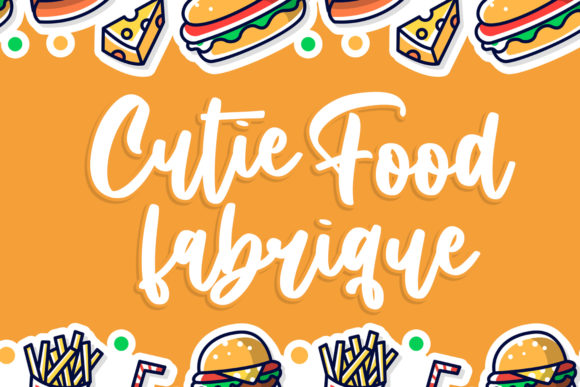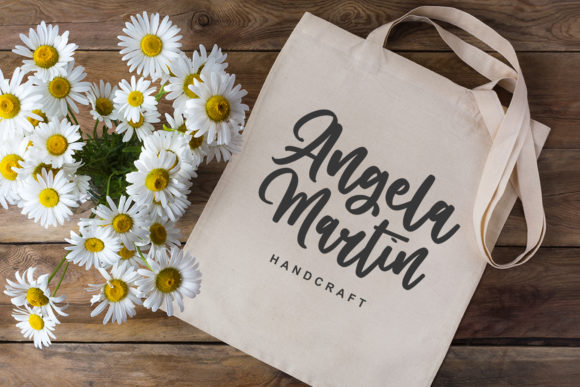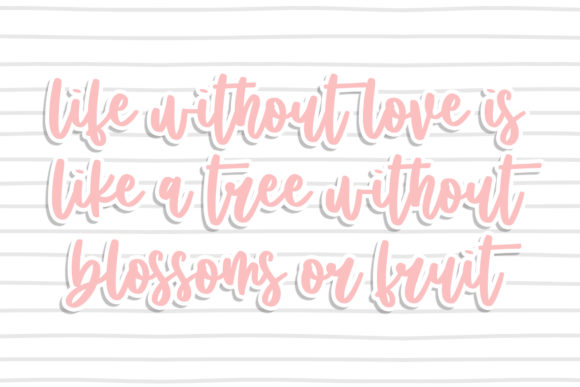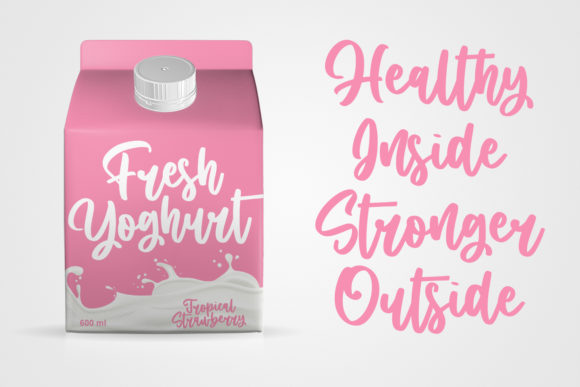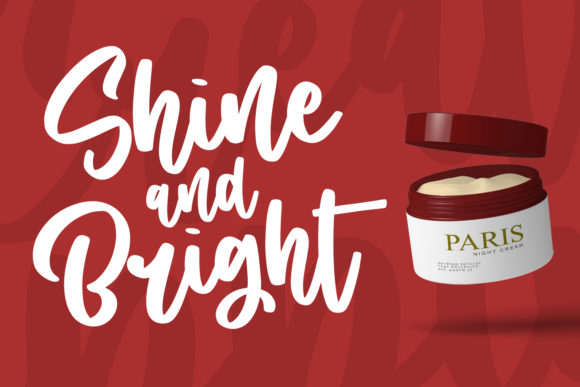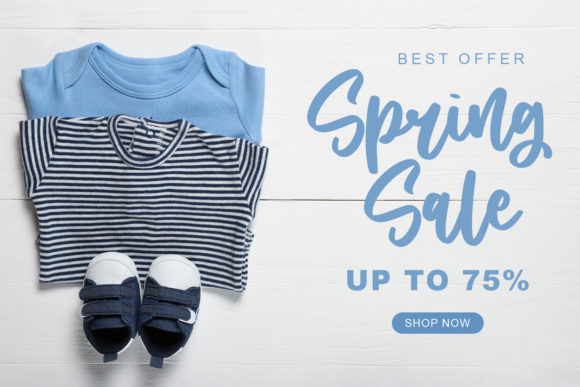
Introduction to Milky Rainbow Font
Milky Rainbow is a cute and quirky display font.
It will add an incredibly joyful touch to your designs Add this beautiful display font to each of your creative ideas and notice how it makes them stand out.
Milky Rainbow Font offers exceptional quality and versatility, making it a valuable addition to your design toolkit. Whether you’re creating for personal projects or commercial use, Milky Rainbow Font delivers professional results.